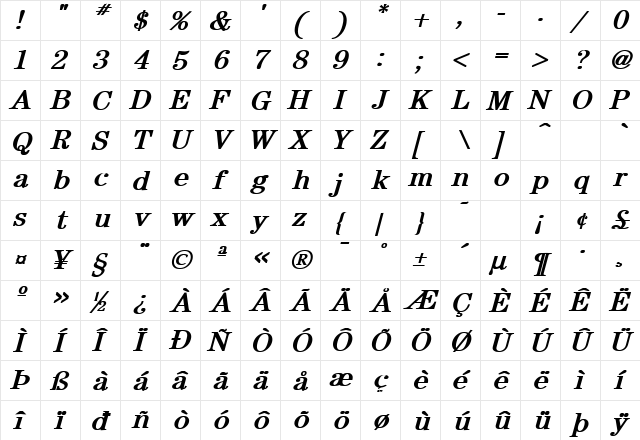
Centurion-BoldI Normal
Design Context for Centurion-BoldI Typeface
Centurion-BoldI takes a measured approach to typography — its balanced proportions and neutral character make it a reliable workhorse for both digital and print work. Its bold stroke weight gives it real presence on the page.